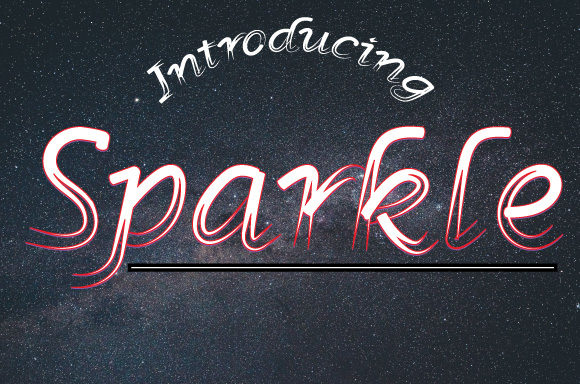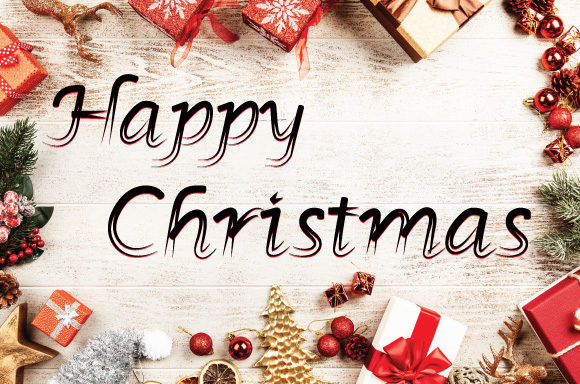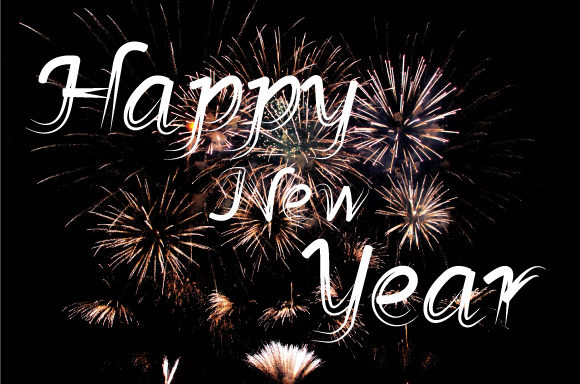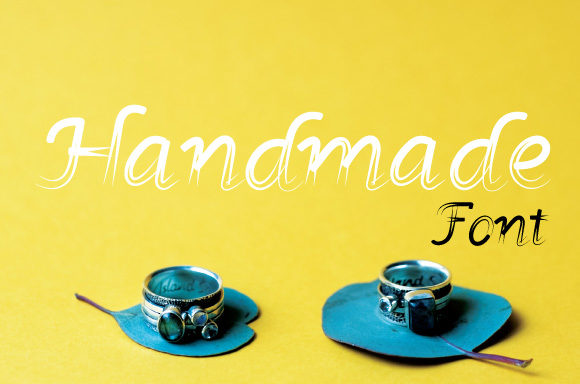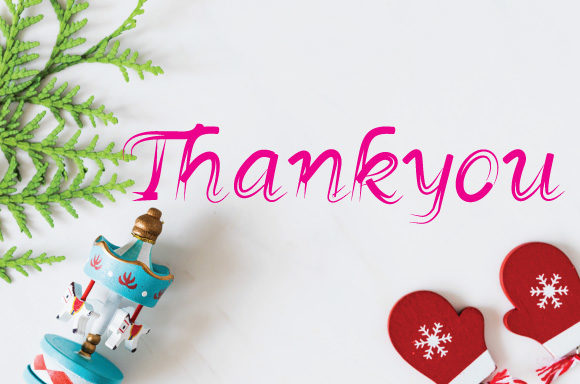
Sparkle Font
About Sparkle Font
Sparkle is a sweet and delicate handwritten font. Original and joyful, this font will brighten up each of your designs. Add it confidently to your projects, and you won’t be disappointed.